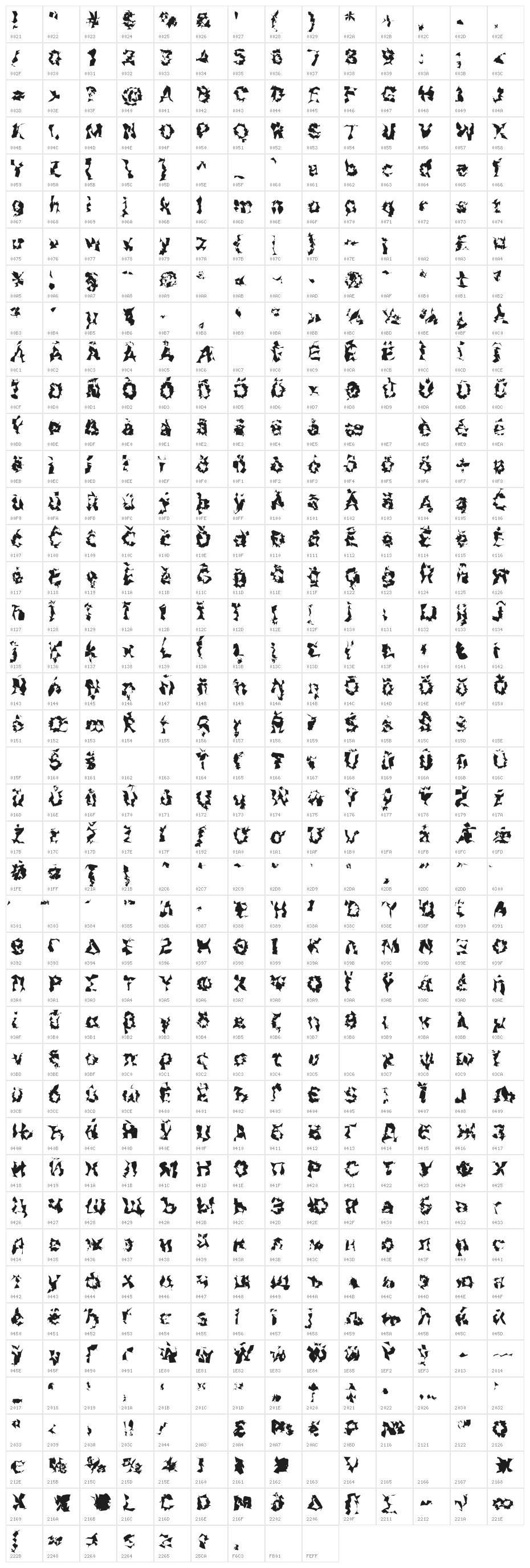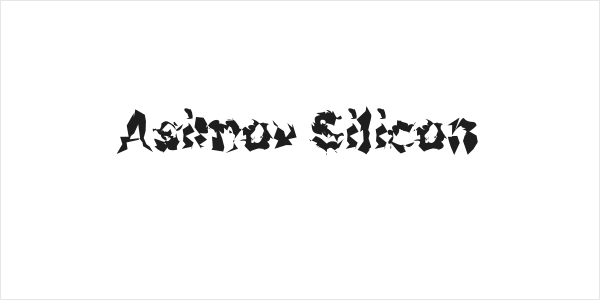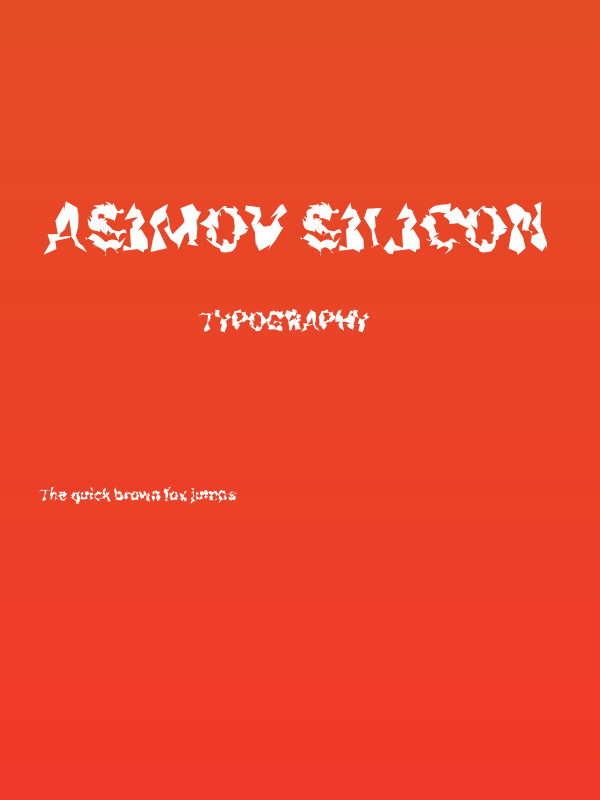
Asimov Silicon Font
Asimov Silicon Description
This font features a highly distinctive and abstract design, characterized by sharp, jagged edges and irregular shapes that create a chaotic yet intriguing visual effect. The letters are fragmented and appear as if they are constructed from shattered pieces, giving the font a dynamic and edgy appearance. Despite its unconventional style, each character is still recognizable, though it requires a moment to decipher due to the complexity of the design. This font is ideal for projects that aim to convey a sense of disruption, innovation, or rebellion, making it suitable for avant-garde art pieces, sci-fi themed designs, or branding that seeks to stand out with a bold statement.
| Proposed Projects | Ideal for avant-garde art, sci-fi themes, rebellious branding, and innovative design projects. |